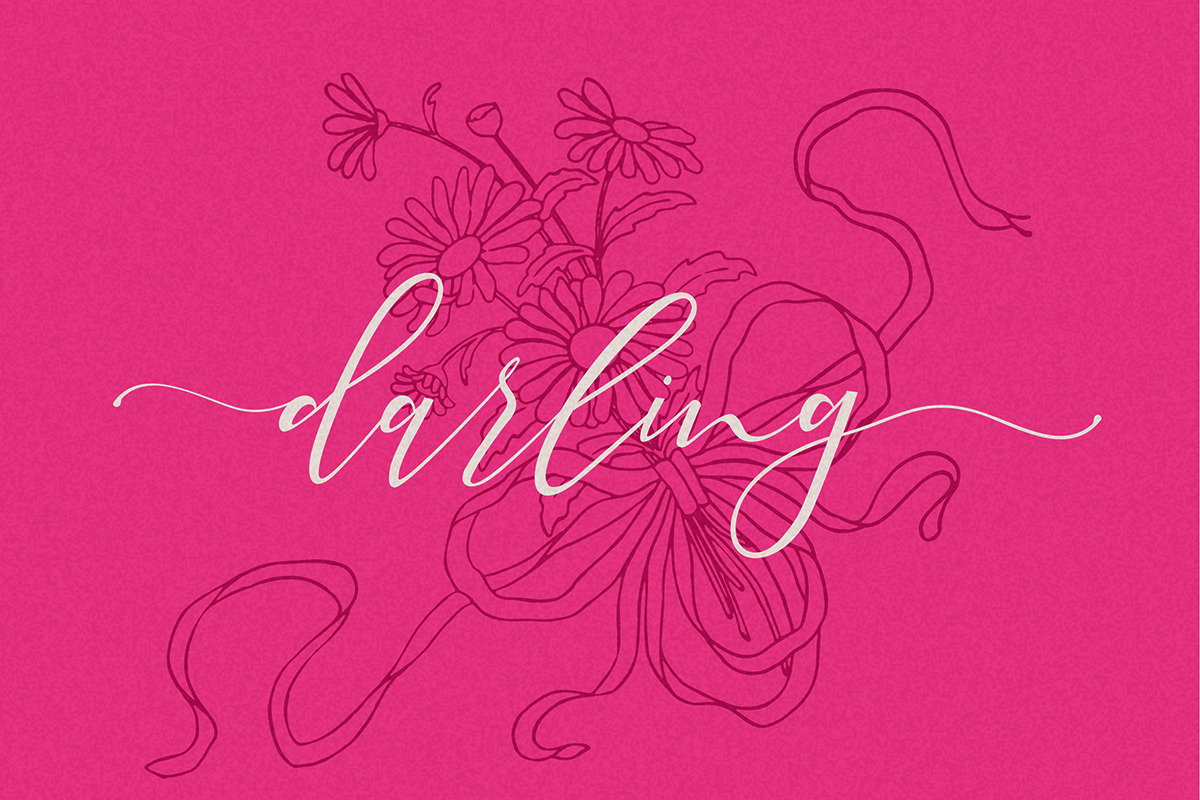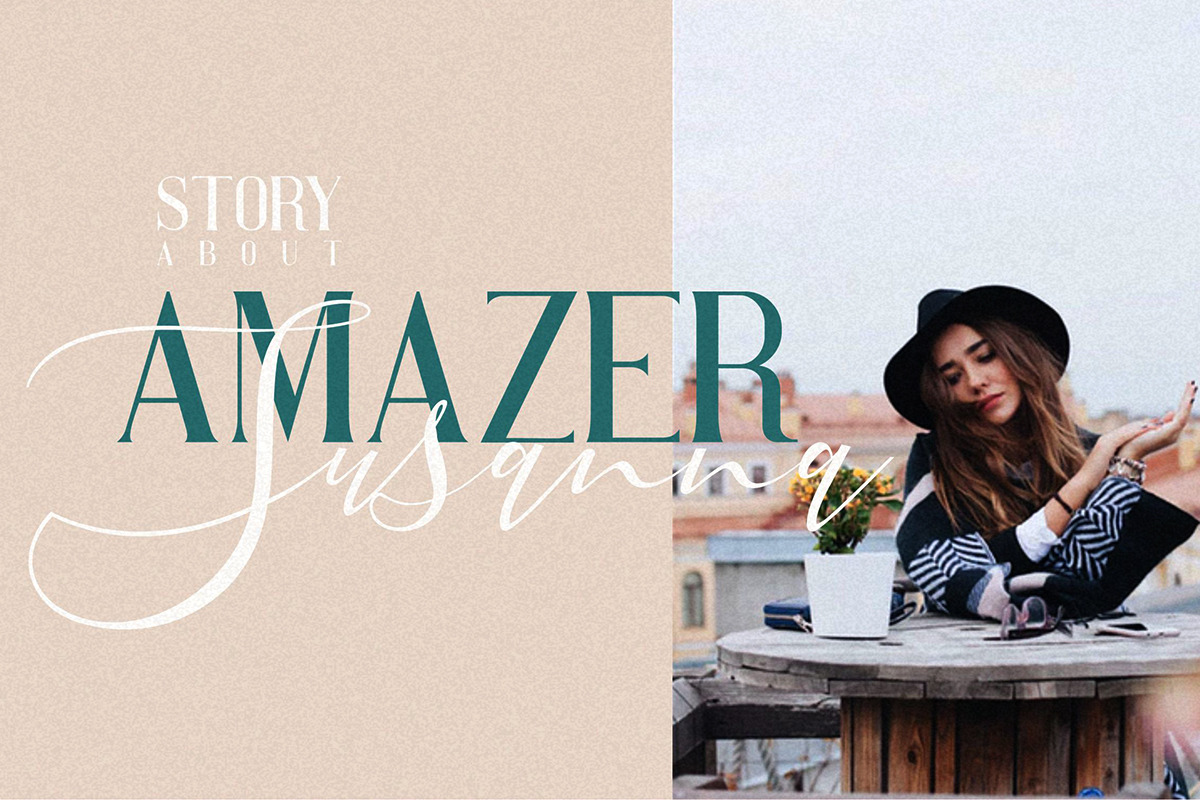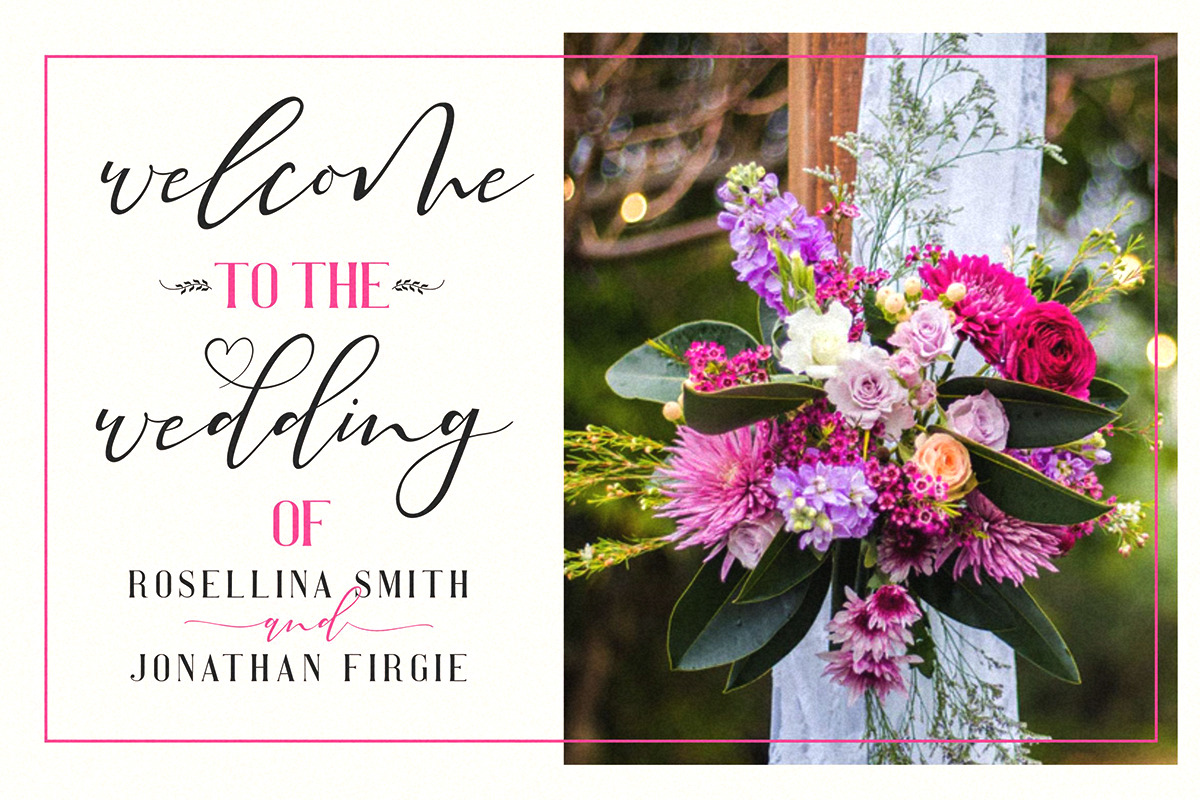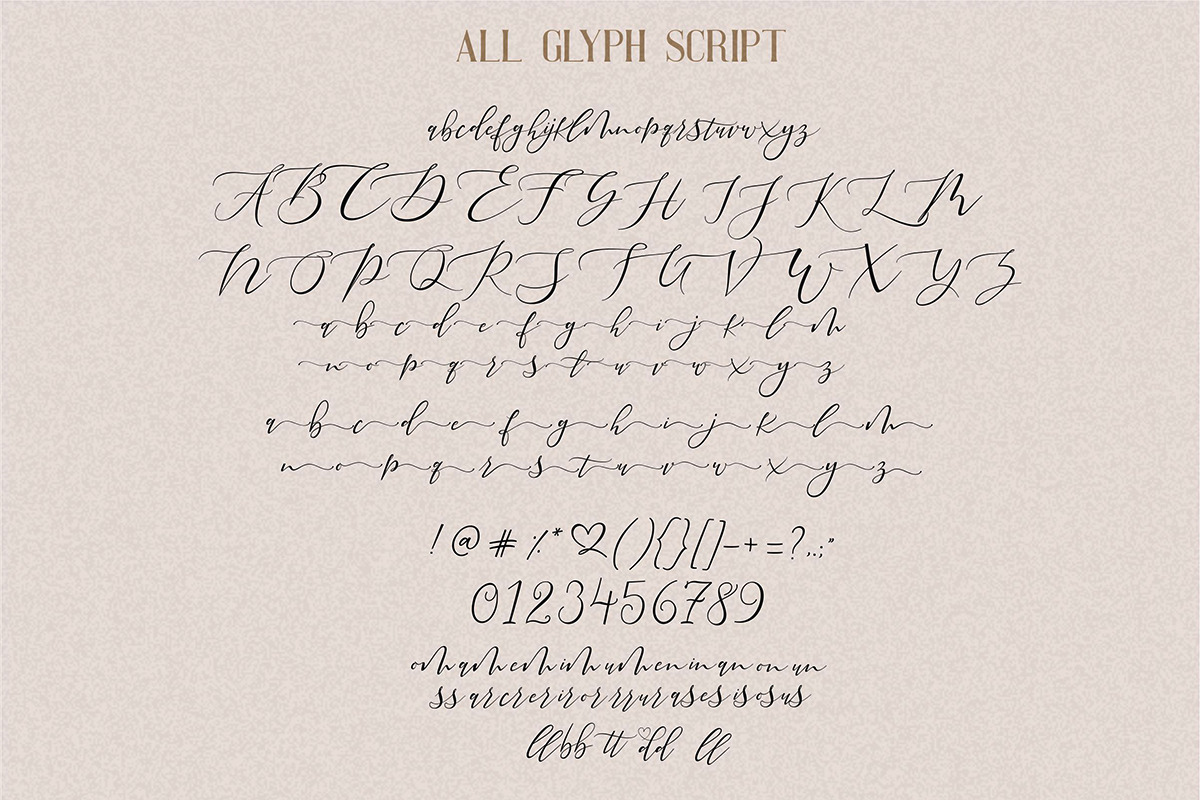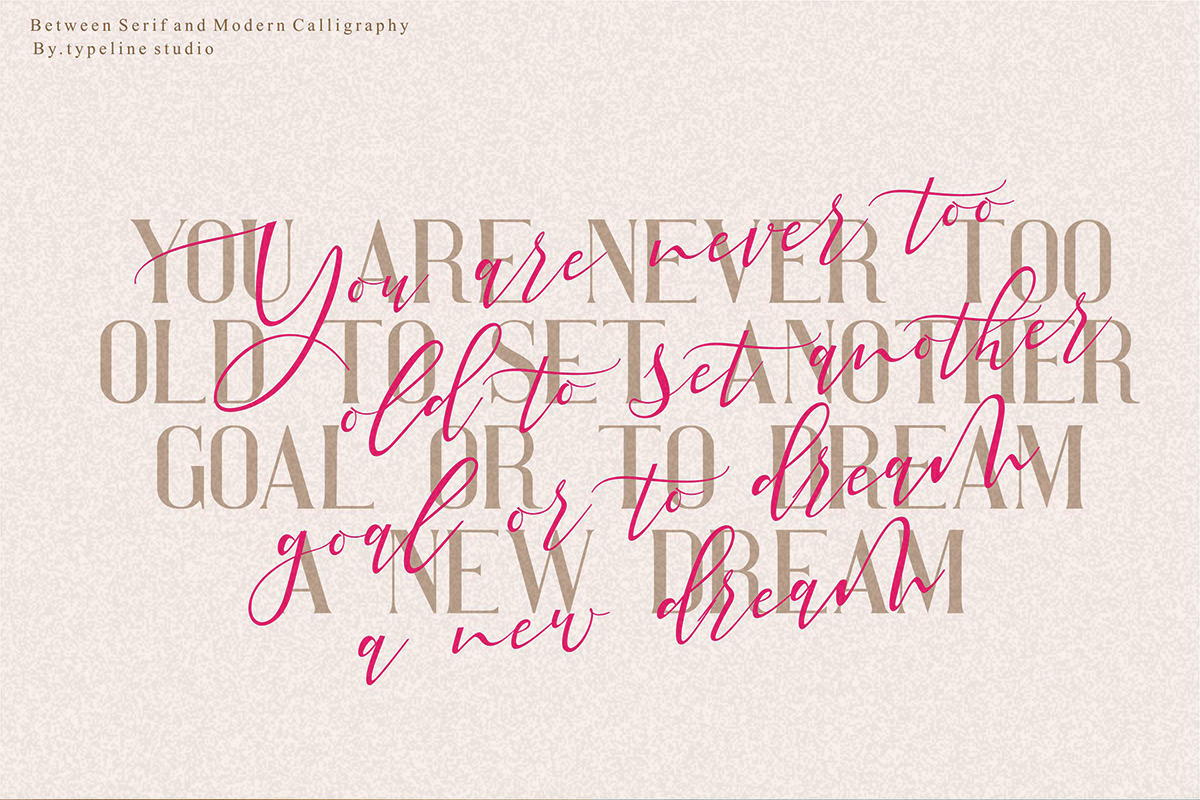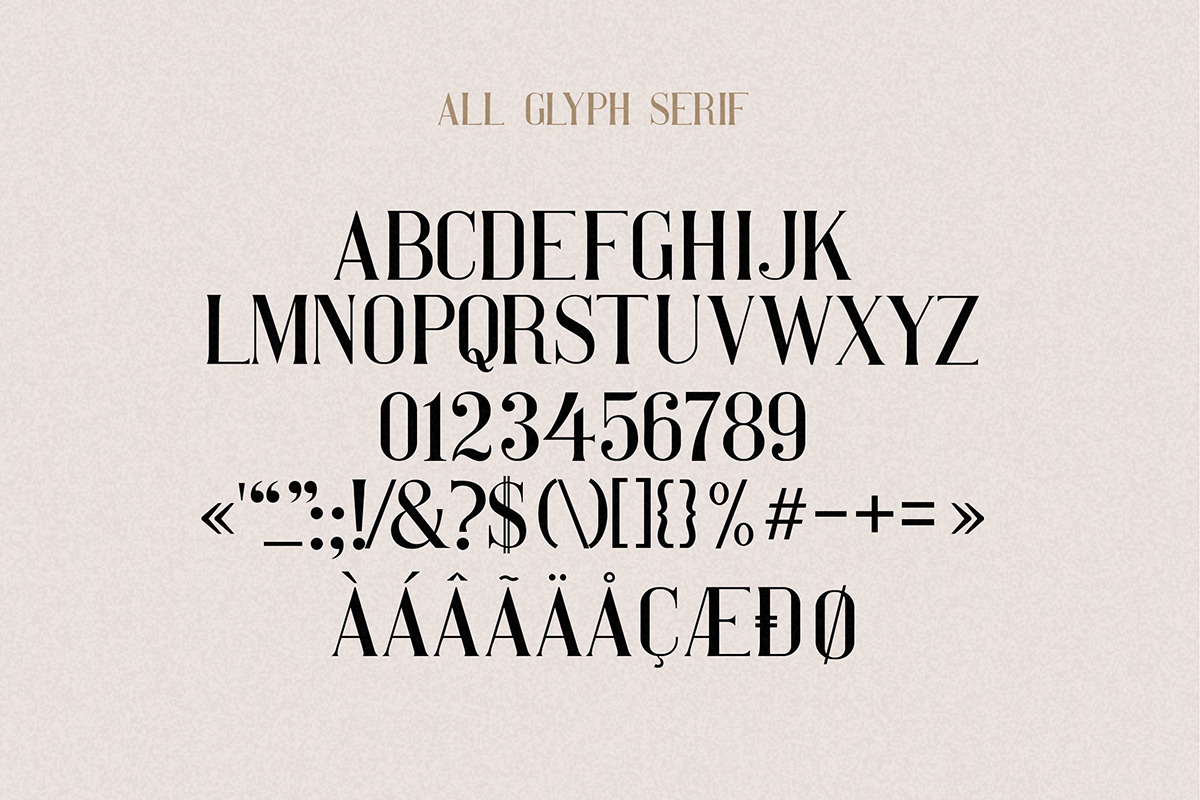
Pretty Woman || Couple Font Duo
Pretty Woman font duo vol.03
hello good people this is my new font.. Pretty woman is font duo between serif and modern calligraphy, pretty woman good for logo branding,wedding invitation,typhography wedding,quotes text,magazine,or anything do you want,..
Pretty Woman Serif include, numbers, punctuation,alternates, and it also supports other languages :)
Pretty Woman scrpt was built with OpenType features and includes Ligature ending swashes(lowercase alternate), numbers, punctuation,alternates, and it also supports other languages :)